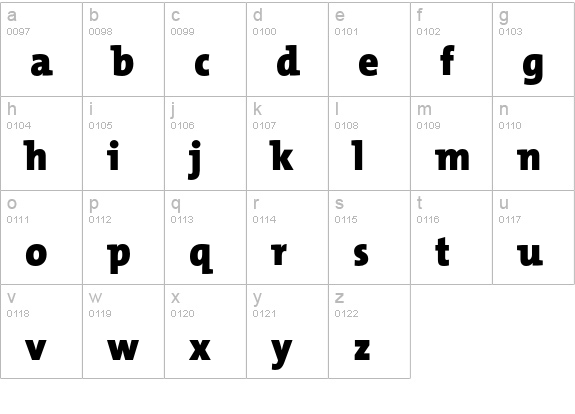
TMixHeavy Font Details
TMixHeavy is a bold and powerful font that commands attention and makes a statement. With its strong and thick letterforms, this font exudes confidence and authority. Each character is meticulously crafted with precision and care, resulting in a typeface that is both visually appealing and highly legible. The TMixHeavy font is perfect for headlines, titles, and any design project that requires a bold and impactful typeface. Its versatility allows it to be used in a variety of contexts, whether it's for print or digital media. Whether you're designing a poster, a logo, or a website, TMixHeavy will effortlessly elevate your design and leave a lasting impression. What makes TMixHeavy even more enticing is that it is available for free download at FontsMarket.com. Yes, that's right! You can freely access and enjoy the benefits of this amazing font without having to spend a dime. FontsMarket.com provides a hassle-free experience, allowing you to easily download TMixHeavy and start using it in your designs right away. So why wait? Add a touch of boldness and sophistication to your designs with TMixHeavy. Download it for free at FontsMarket.com and unleash the full potential of this remarkable typeface.